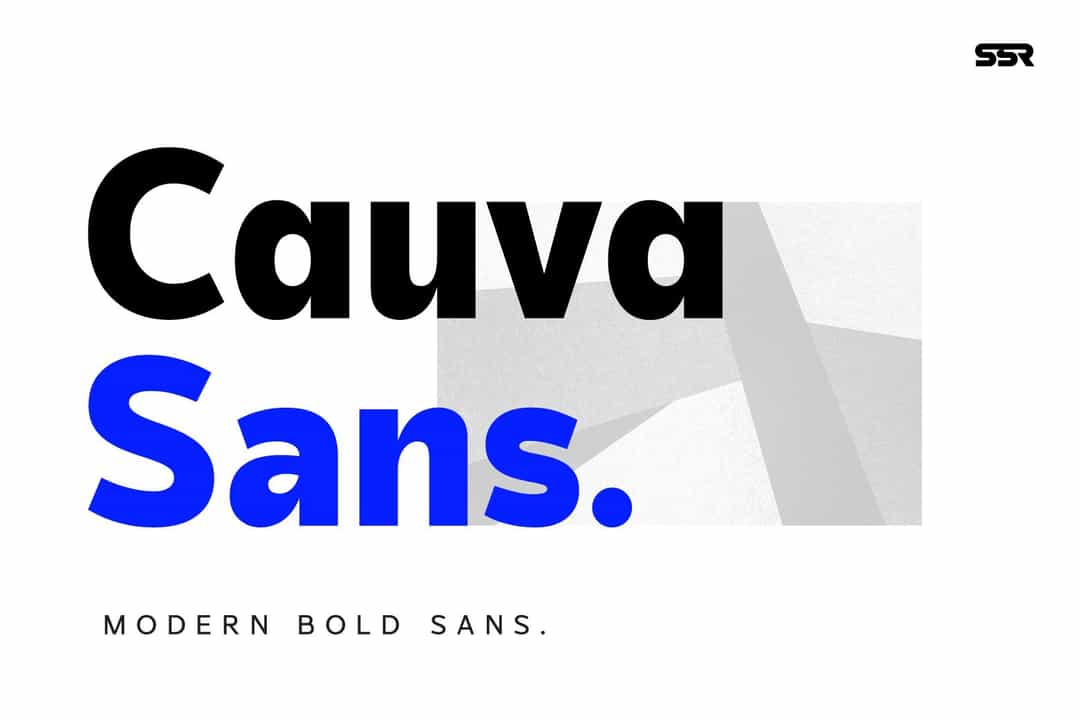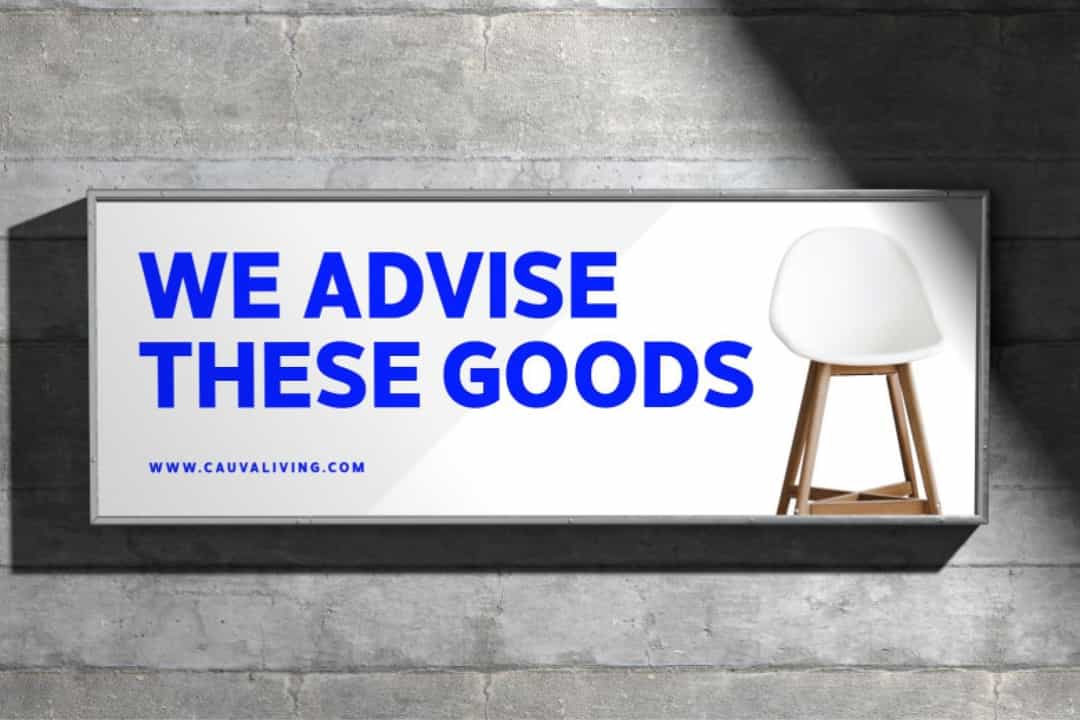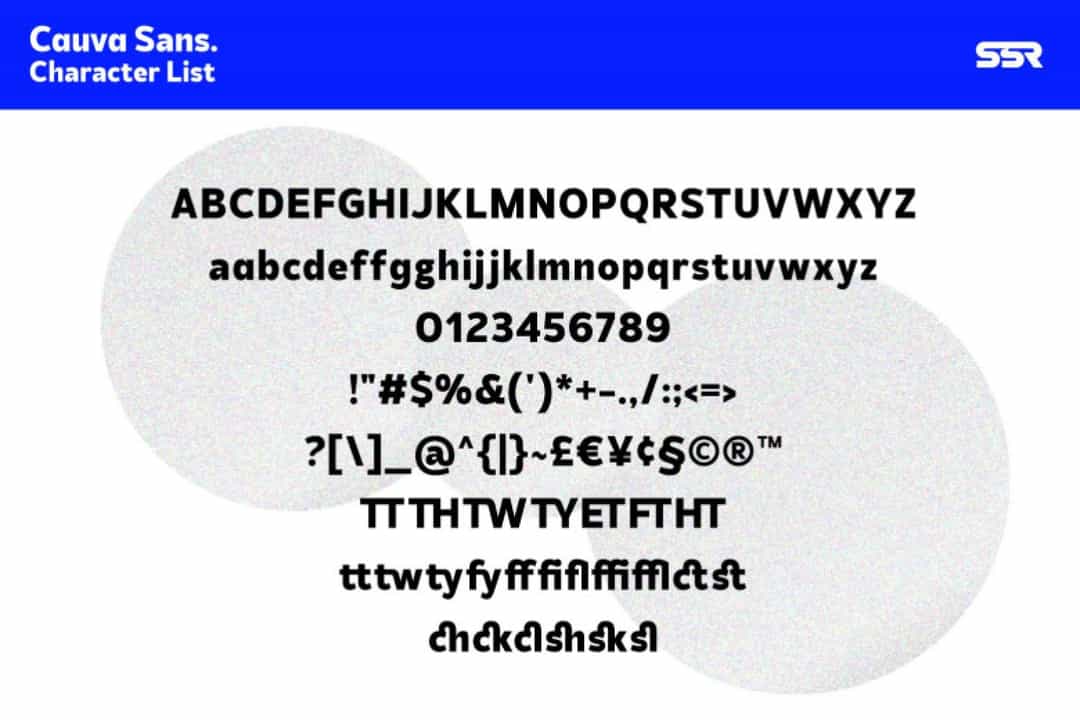
Cauva Sans is a bold Sans Serif font with contemporary typeface characters. Designed to be easily read and easily used by multiple individuals, its crisp lines and powerful features make this font suitable for a range of design projects such as logo design and branding, packaging for products web design, print advertisements graphics for social media corporate presentations magazine layouts headlines etc.